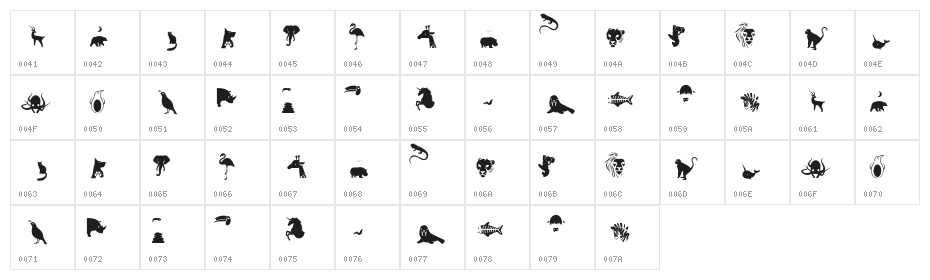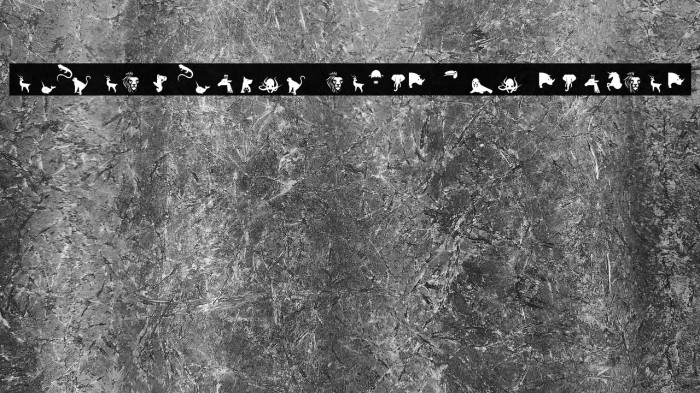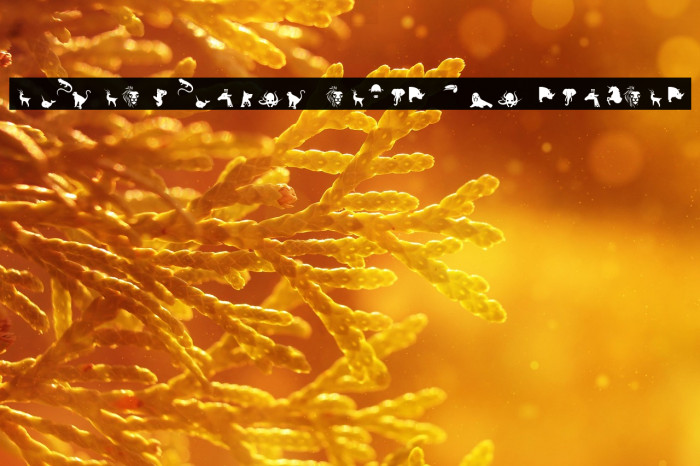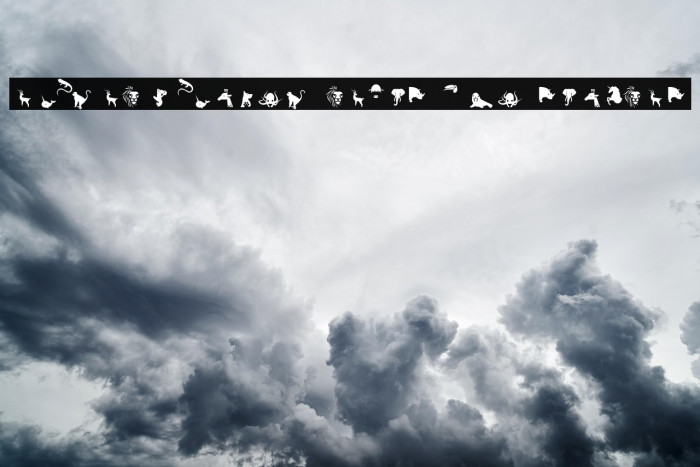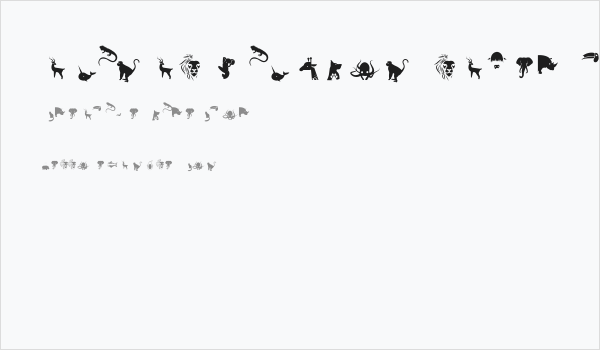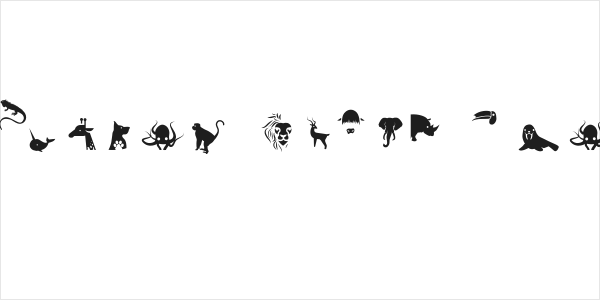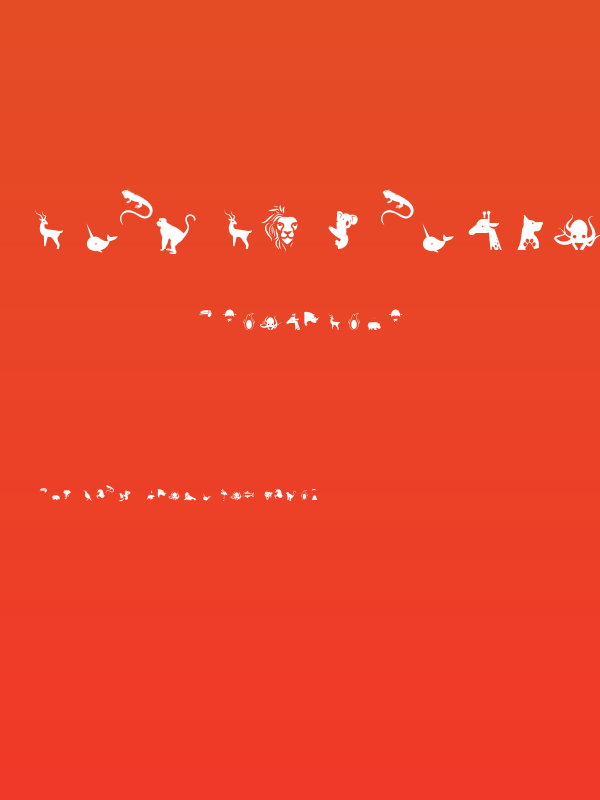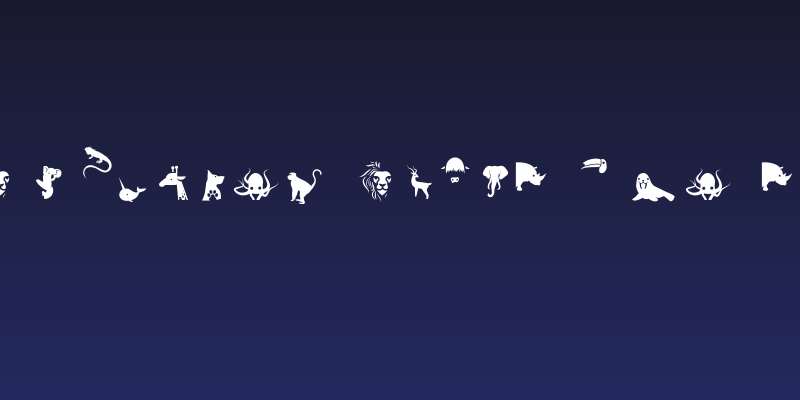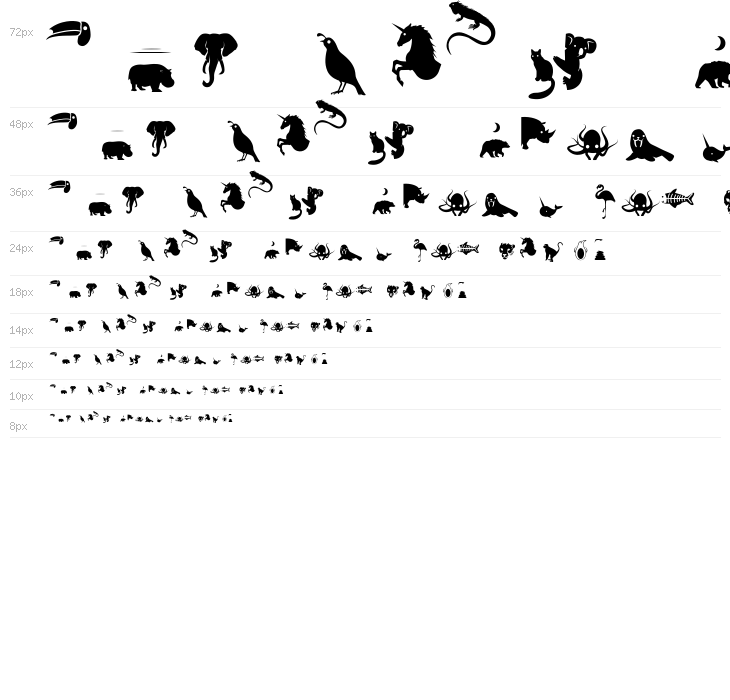
Animal Kingdom Layer Two Regular Font
Animal Kingdom Layer Two Regular Description
This is a decorative font featuring a variety of animal silhouettes. Each character is represented by a unique animal design, ranging from mammals and birds to aquatic creatures and insects. The designs are bold and distinctive, making them suitable for creative and playful projects. The font captures the essence of the animal kingdom with intricate details and a whimsical style. It is perfect for projects that require a fun and engaging visual element, such as children's books, educational materials, or themed event invitations. The font's playful nature and diverse character set make it versatile for various design needs.
| Use Case | Logos, Headlines, Decorative elements |
| Proposed Projects | Ideal for children's books, educational materials, themed event invitations, and playful design projects. |